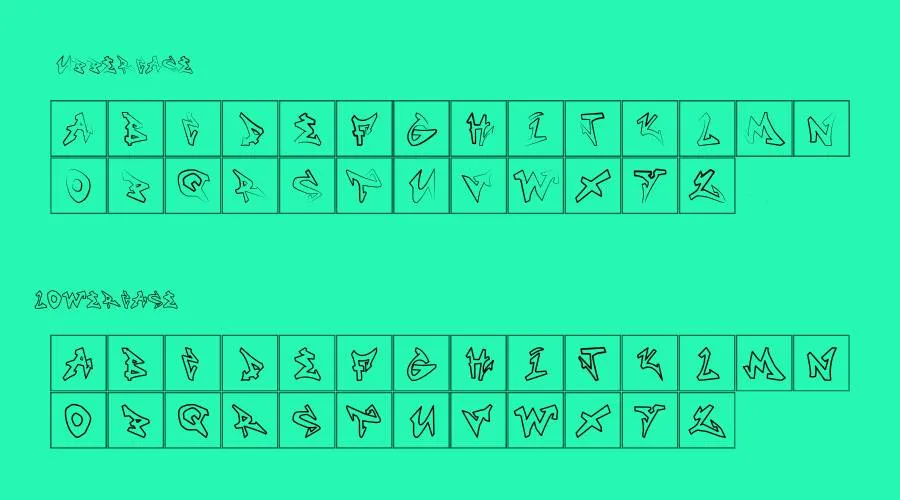
Nonamehd Font
About Nonamehd Font
D128Design creates the Nonamehd Font It too incorporates a set of optional cords, which includes its versatility. This typeface contains in-vogue glyphs and characters the design may be an incredible choice for any extent that needs a touch of class.
Get it and include a stylish touch to the following extent. You'll do your coursework introductions utilizing this typeface and make it more appealing to your instructors and classmates.
The design can be used to create interesting covers, shop names, logos, and logos for shops, stores, and websites. A similar font to this typeface is windy city caps font. As well as branding projects, houseware designs, packaging, or even simply as an attractive text overlay on any background image, the typeface is suitable for all types of projects.
The typeface also can create stunning logos and branding materials. The font contains all glyphs and swashes, so you can access them easily. Many official projects are best suited for this stunning font. Designers love this international font.